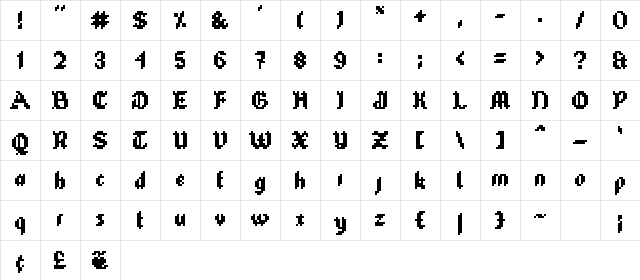
TubeOfCorn Medium
Design Context for TubeOfCorn Typeface
TubeOfCorn is a composed and adaptable typeface that performs quietly and consistently across a wide range of design contexts.